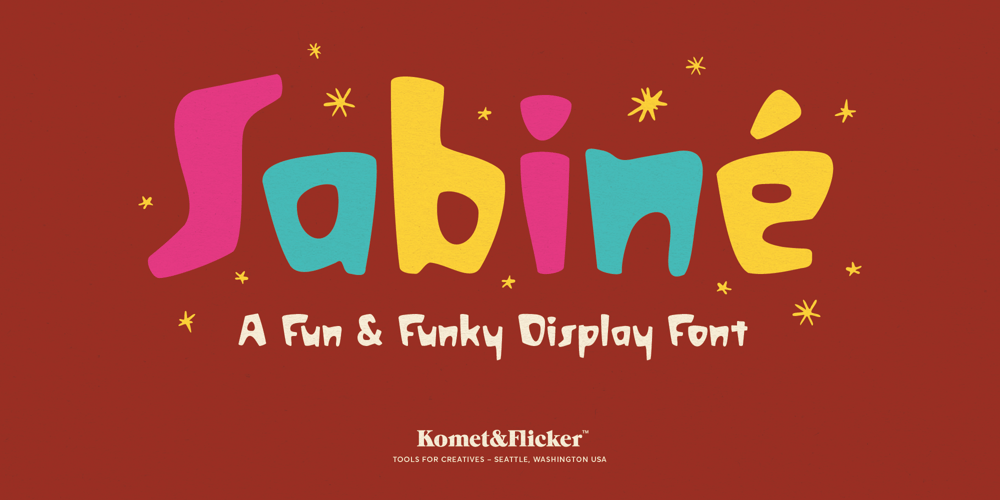
Sabine Font Family was designed by David Phillips, Traci Daberko and published by Komet & Flicker. Sabine contains 1 styles and family package options. Introducing Sabiné – a fun and funky display font that’s ready to turn any design into a lively celebration! Bursting with personality and charm, Sabiné is perfect for injecting a playful vibe into your party invites, children’s themed designs, and any project that needs a touch of whimsical flair. Its quirky, eye-catching style ensures that your message stands out with a splash of joy and creativity. Whether you’re crafting birthday invites or designing vibrant event posters, Sabiné adds an irresistible spark of fun to every letter. Get ready to make your designs dance with Sabiné!THIS FONT INCLUDES• A-Z uppercase and lowercase basic latin characters• Select European specific characters• Numbers, punctuation, and select symbols• Six starburst dingbatsIn Illustrator, the extra custom glyphs can easily be accessed in the “Type → Glyphs” panel. In Photoshop they can be accessed through “Type → Panels → Glyphs Panel”.